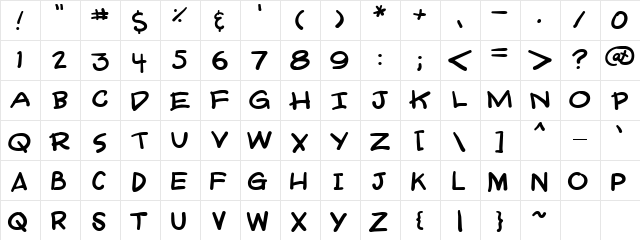
CK Comic Book Regular
Design Context for CK Comic Book Typeface
CK Comic Book trades formality for fun, with bouncy, characterful letterforms that bring warmth and energy to any project.
Font Pairing: Pairs well with a rounded or humanist sans for body copy, maintaining the friendly tone without relying on CK Comic Book to carry extended reading.
Pro Tip: Use CK Comic Book at larger display sizes where its expressive character can land. Pair with a clean, simple sans for body copy to maintain readability.